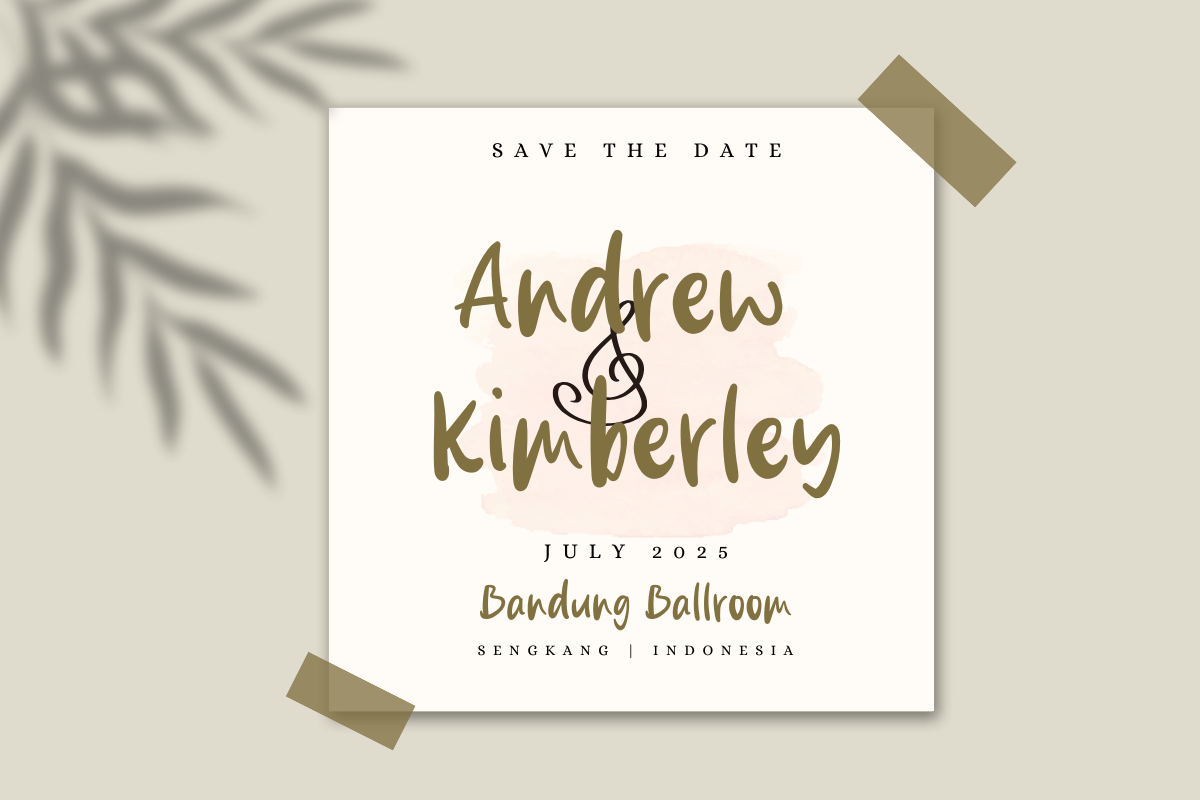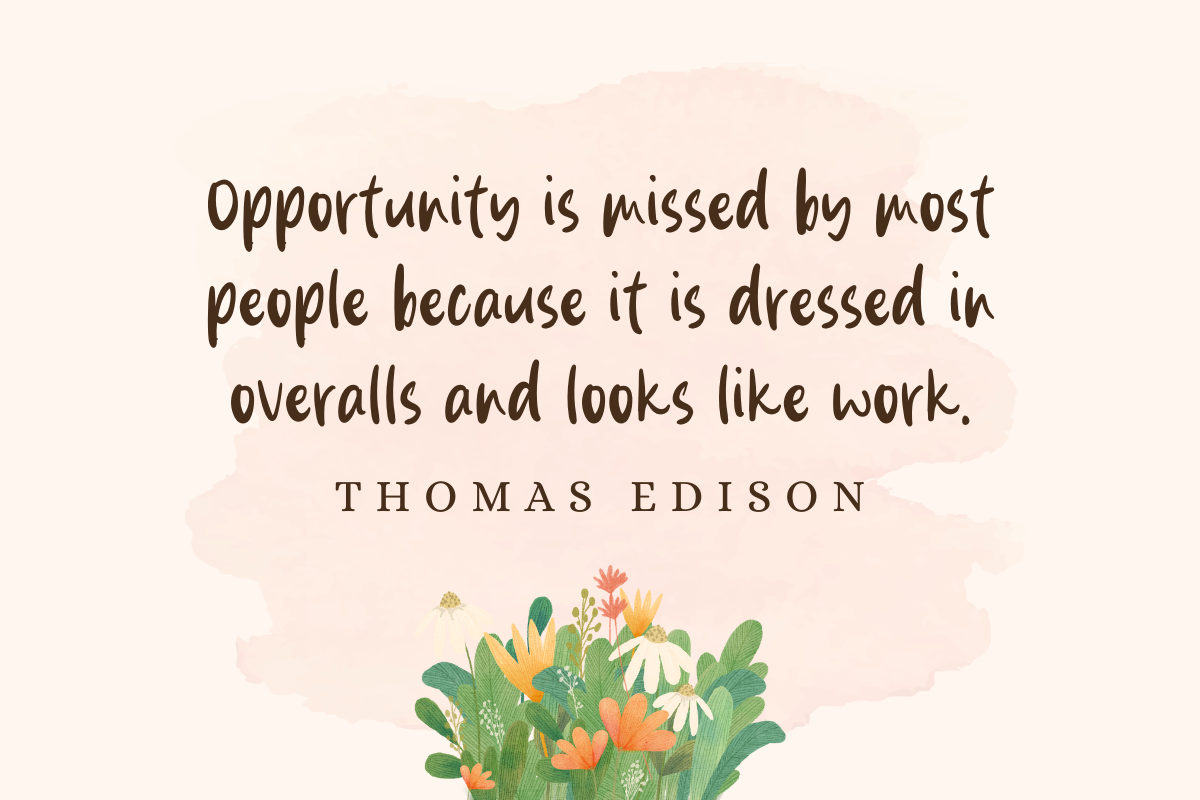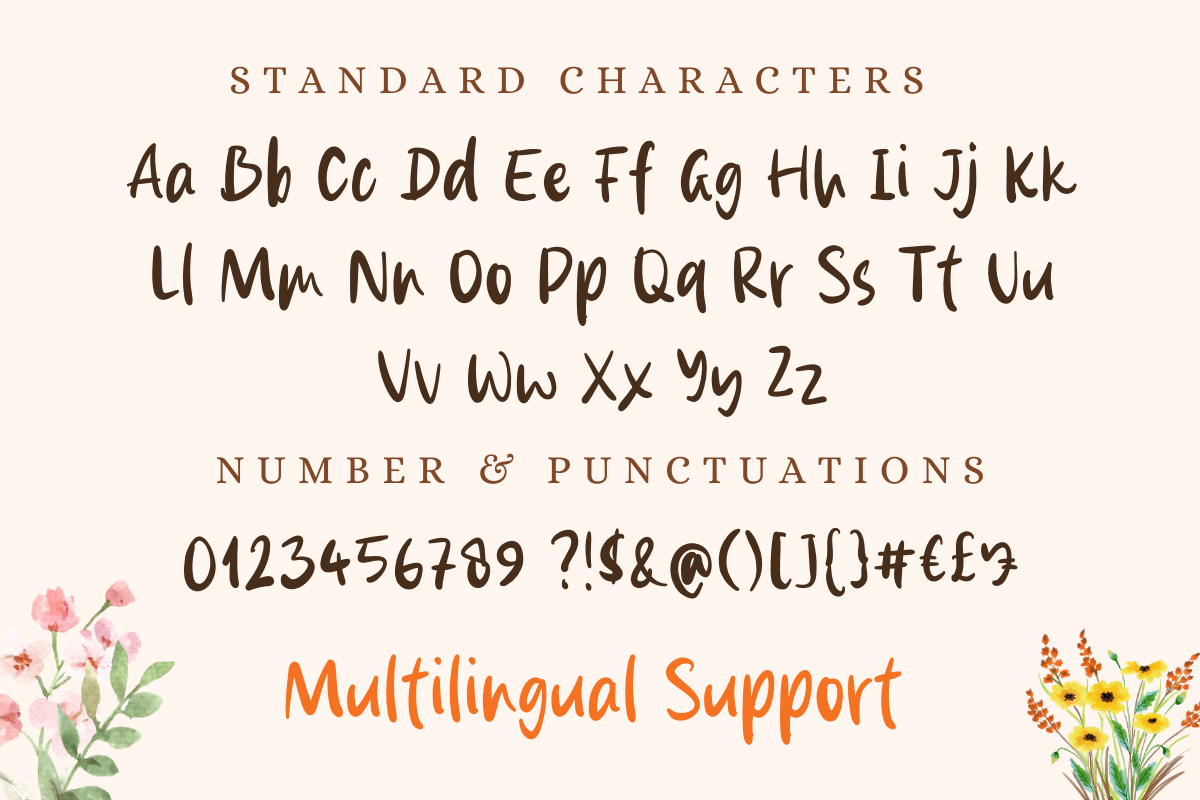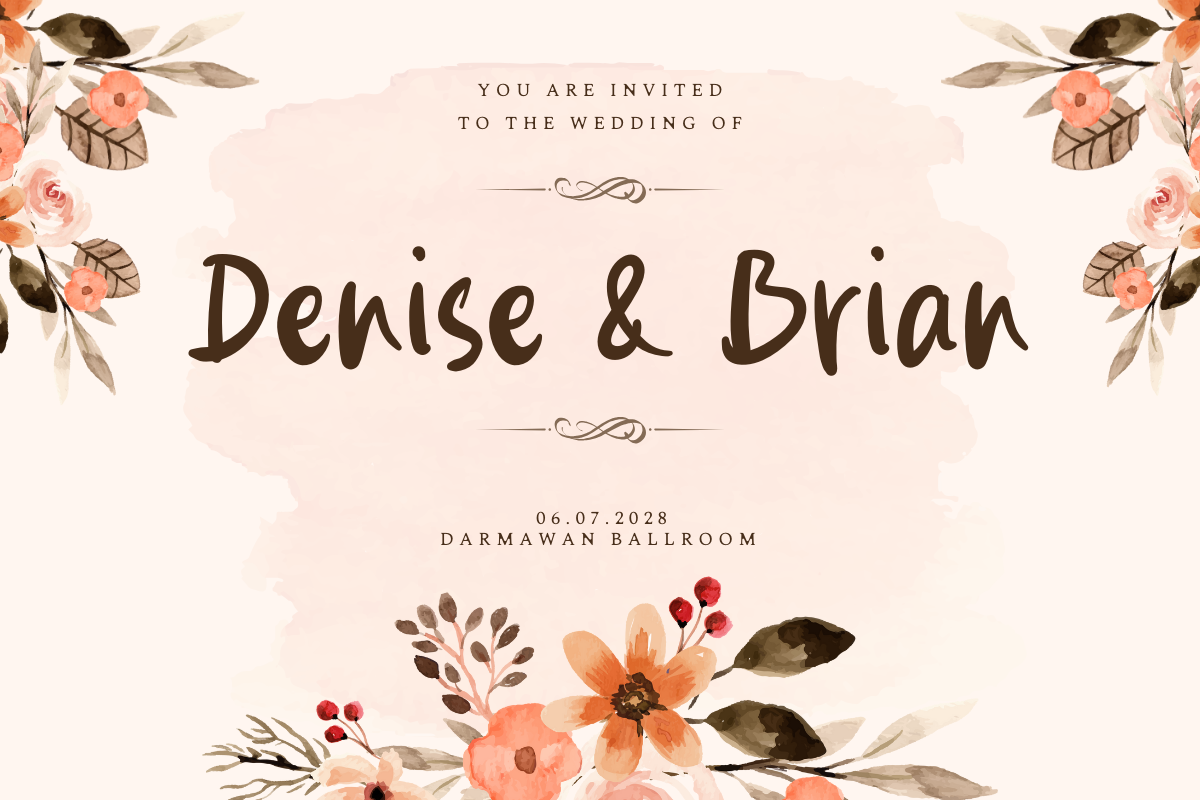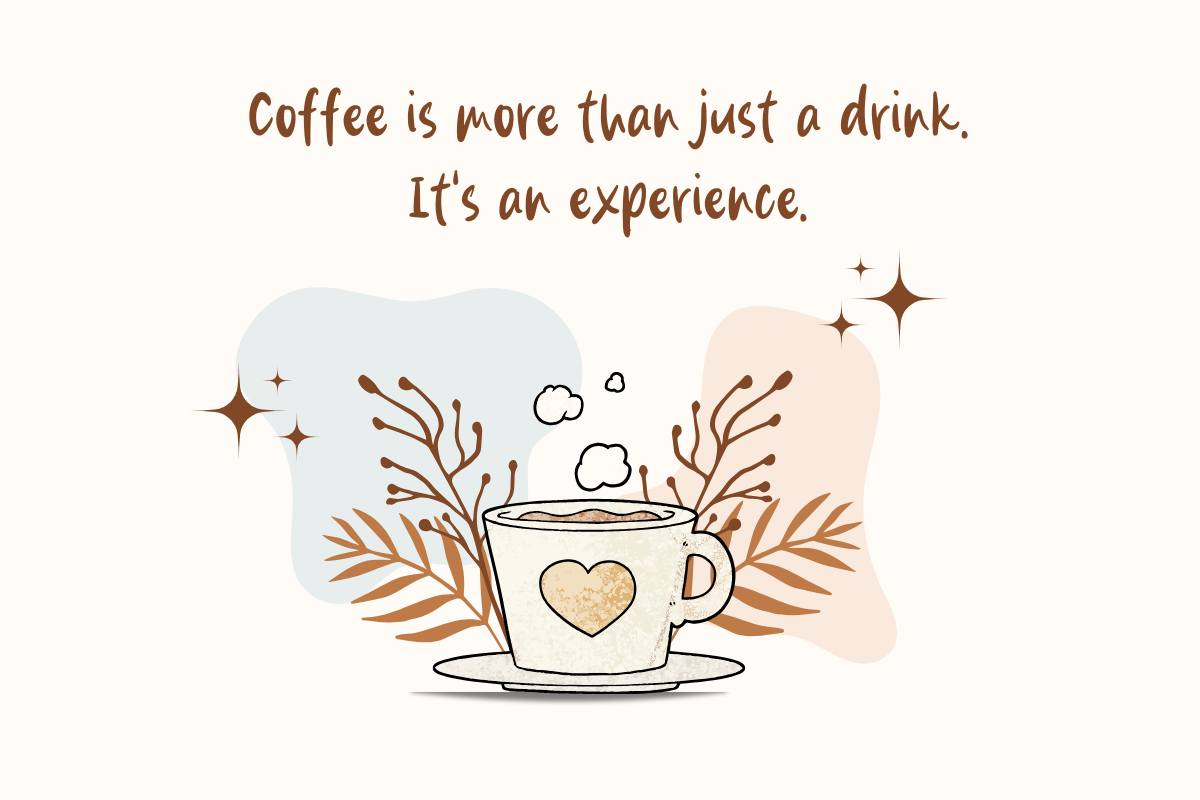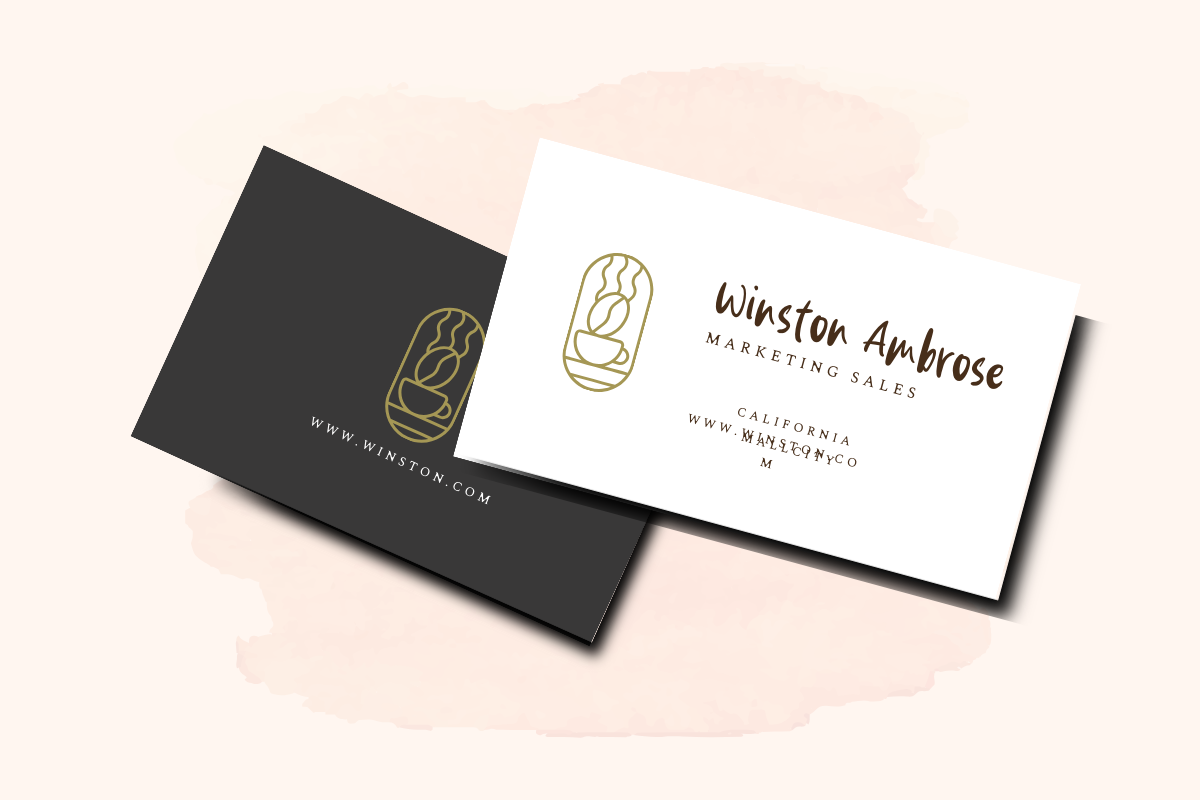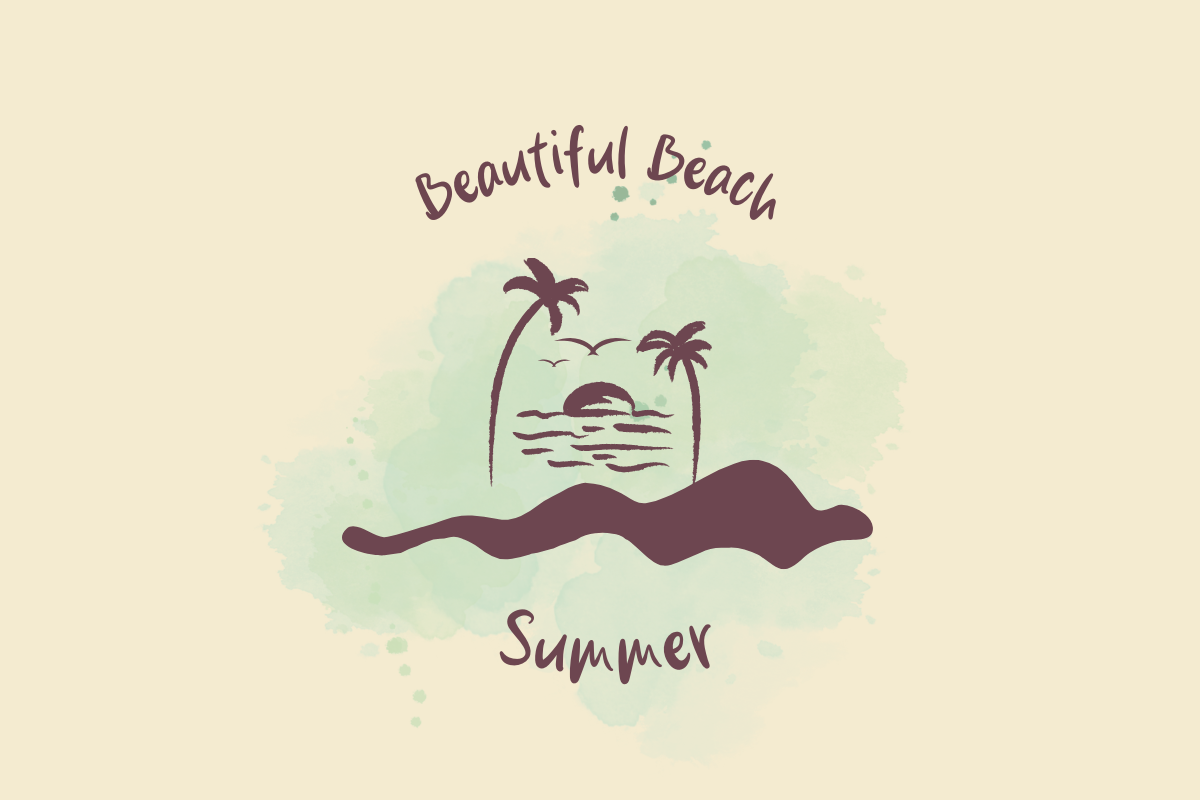
Andrew Dawkins
We are introducing the “Andrew Dawkins” font, a handwritten style font created directly by hand, resulting in beautiful, natural, and unique writing.
Andrew Dawkins font is very suitable for branding, logotypes, magazines, quotes, wedding invitations, crafts, printed designs, and others.
Andrew Dawkins font supports many languages around 90 languages, amazing isn’t it?
- Multilingual Support ( Support for 90 languages )